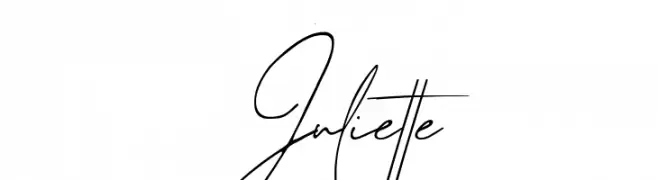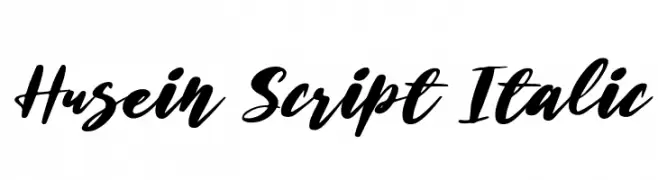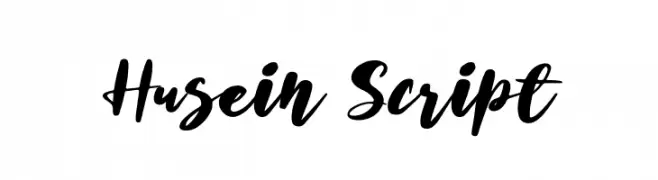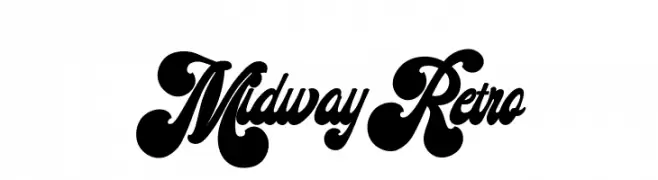
An elegant and sophisticated cursive font with fluid, connected letters.
A fluid, elegant handwritten font with a touch of informality.
A bold, flowing script font with an italic slant and a handwritten feel.
A bold, flowing script font with elegant, interconnected strokes.
A bold, dynamic script font with sweeping curves and dramatic flourishes.
A dynamic and expressive handwritten font with fluid cursive letterforms.
A bold, italic font with a dynamic and playful style.
A bold, playful font with exaggerated curves and a dynamic style.
A bold, energetic script font with flowing, interconnected strokes.
A bold, retro font with playful curves and a vintage flair.